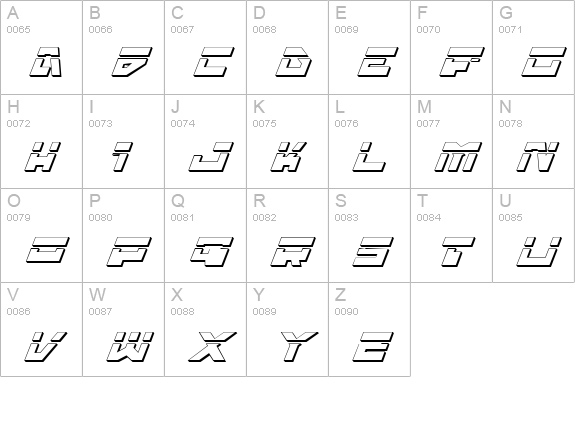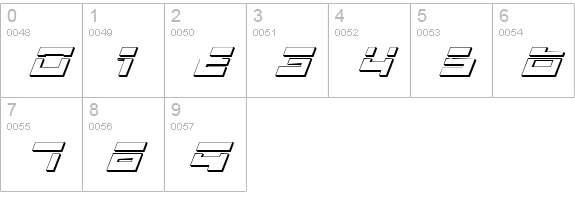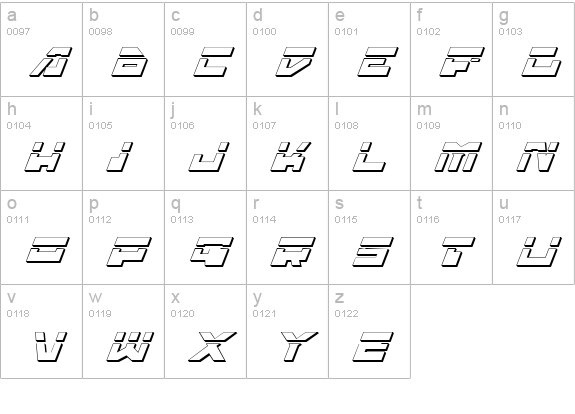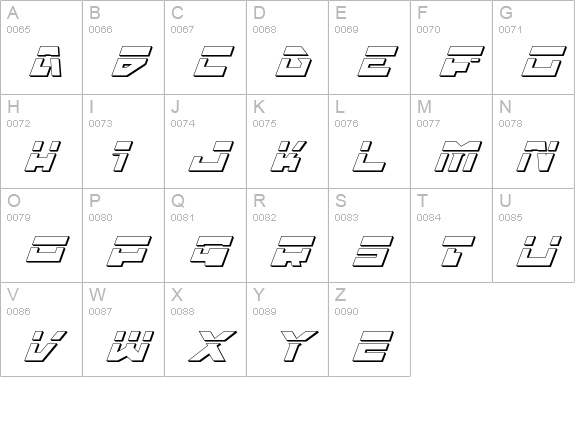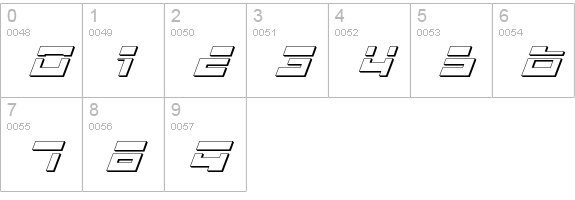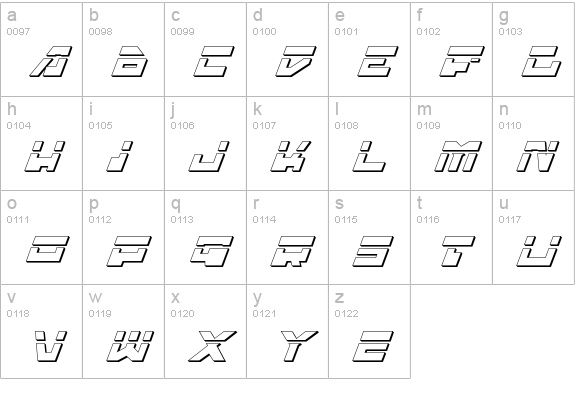
Trajia Laser Italic 3D is a distinctive, italic variant in the Trajia typeface family \xE2\x80\x94 well suited to design and typography projects.
Trajia Laser Italic 3D font is a stunning display typeface that exudes elegance and sophistication. With its sleek and modern design, this font is perfect for adding a touch of style to any project. The 3D effect adds depth and dimension, making your text truly stand out. What sets Trajia Laser Italic 3D font apart is its unique laser-cut inspired details that give it a futuristic and edgy look. The italicized style adds a sense of movement and dynamism, making it a versatile choice for a wide range of design applications. Best of all, Trajia Laser Italic 3D font is available for free download at FontsMarket.com. Whether you're working on a poster, logo, website, or any other design project, this font is sure to elevate your work to the next level. Download it today and unleash your creativity with this eye-catching typeface.